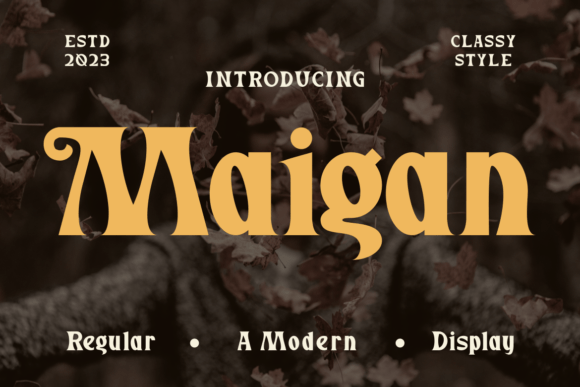
Strut into the world of eye-catching typography with Maigan, a fearless display font that radiates confidence and demands attention. Let its bold strokes and captivating curves ignite your creative spark, transforming your designs into unforgettable masterpieces.
Indulge in a font that's the very essence of individuality, handcrafted to empower your vision on posters, t-shirt prints, and esports logos. Unleash the rebel within and make a statement with every letter, letting your designs roar with unyielding character and flair.
Maigan is not just a font; it's an emblem of authenticity, a brushstroke that paints your ideas with boldness and originality. Dive into a world of creative freedom, where your imagination takes center stage and your designs leave a lasting impression.
Don't settle for ordinary fonts that blend into the background. Embrace the power of Maigan, the display font that commands attention and captivates hearts. Let your designs speak volumes, unleashing a symphony of visual impact that resonates with every viewer.
With Maigan by your side, your creative potential knows no bounds. Embrace the limitless possibilities of self-expression, where your ideas take flight and soar to new heights. Let your designs ignite the world with their brilliance, leaving an indelible mark on the canvas of creativity.
Unlock the allure of Maigan today and let your designs dance with unwavering confidence. Stand out from the crowd and let your imagination ignite with every stroke you make. Maigan invites you to embrace the extraordinary, to craft designs that captivate and inspire.